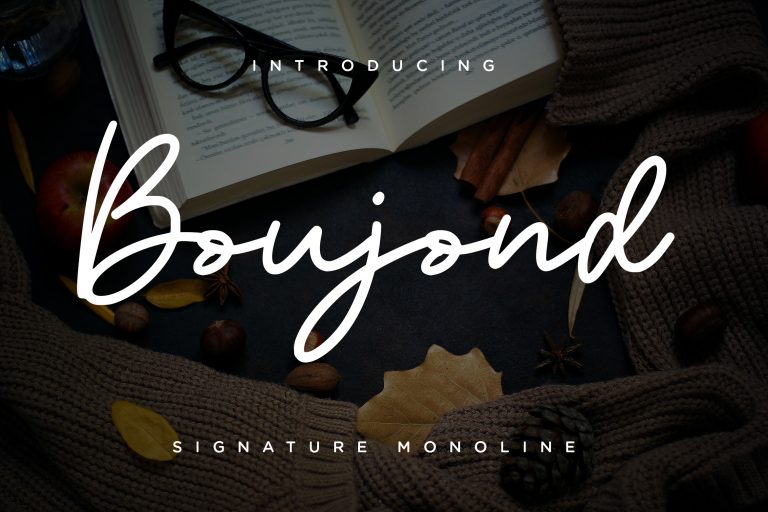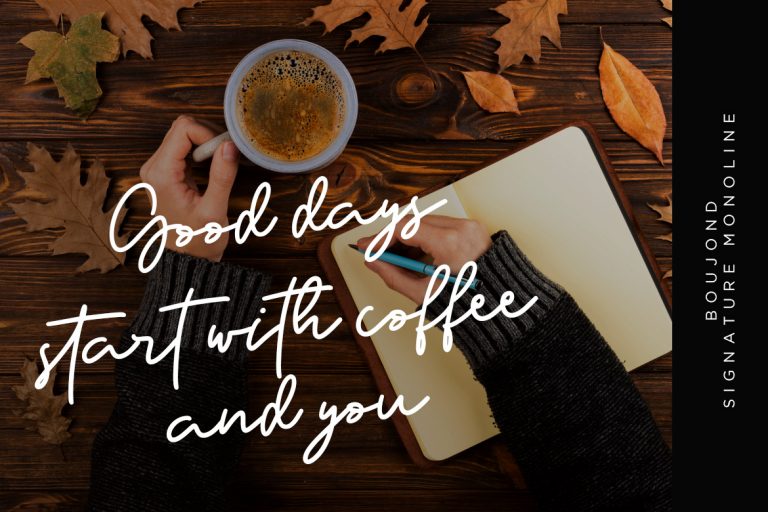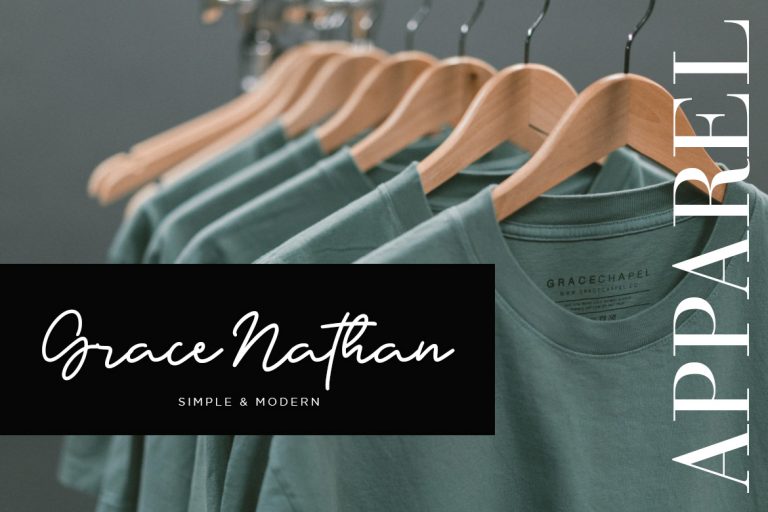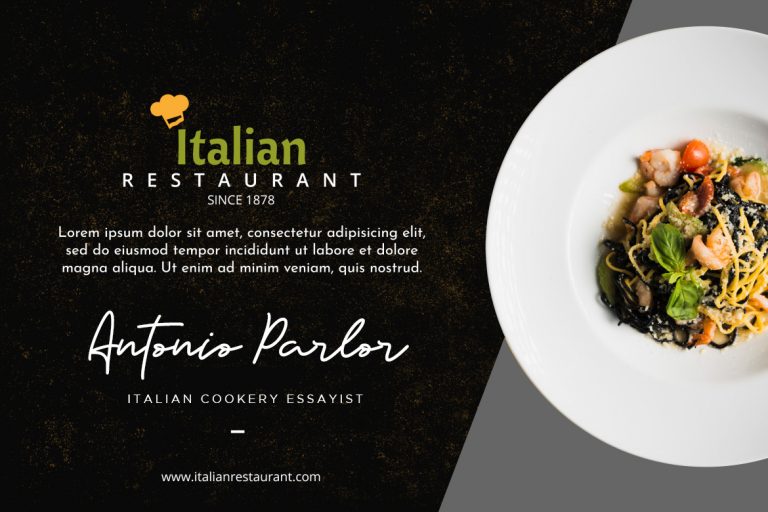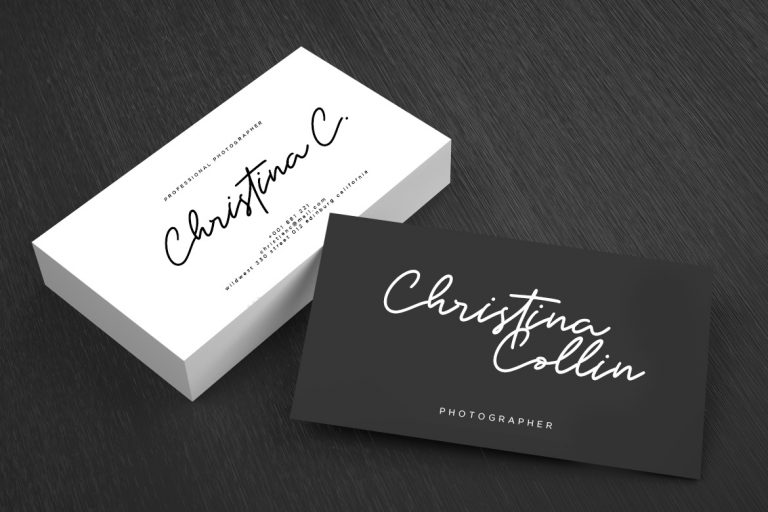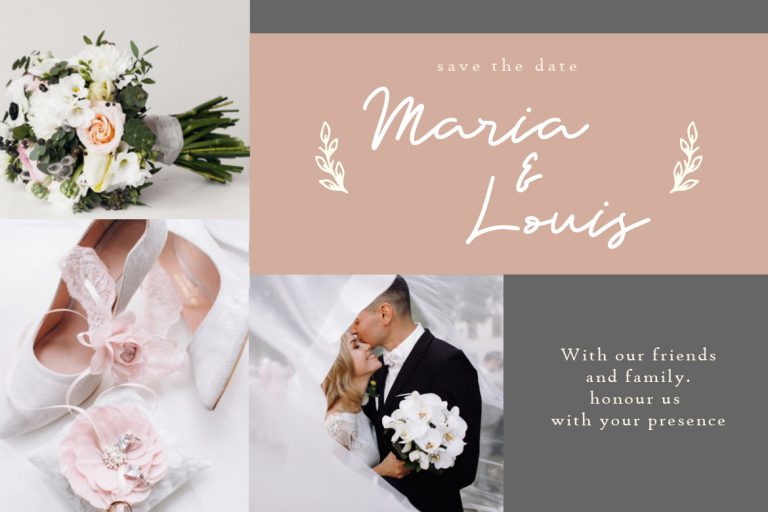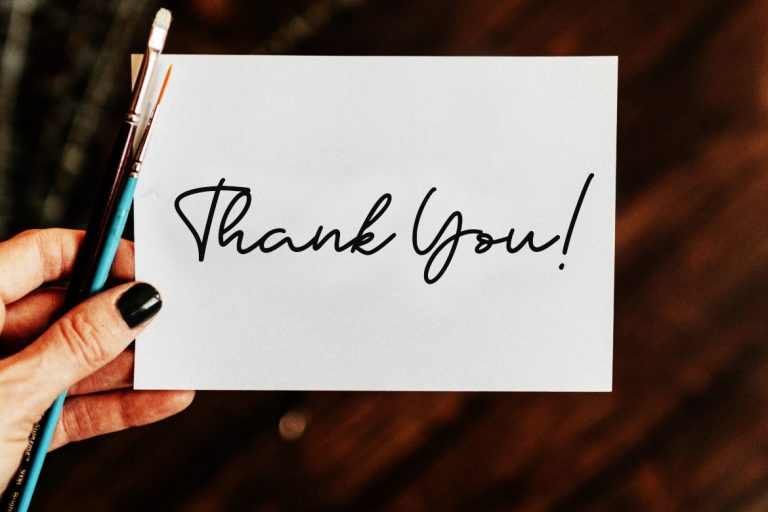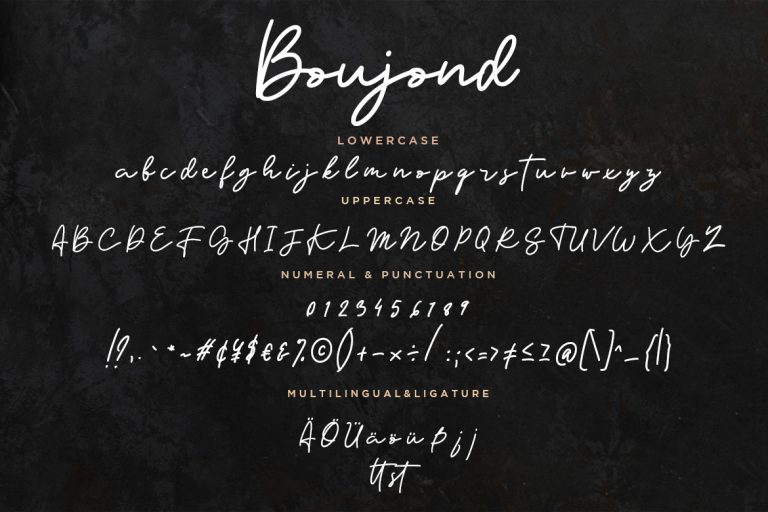
Boujond is monoline font with signature style, it’s looks so natural movement.
Boujond is perfect for branding projects, logo, wedding designs, social media posts, advertisements, product packaging, product designs, label, photography, watermark, invitation, stationery and any projects that need handwriting taste.
• Fonts include multilingual support for; ä ö ü Ä Ö Ü ß ¿ ¡
Boujond Signature Monoline